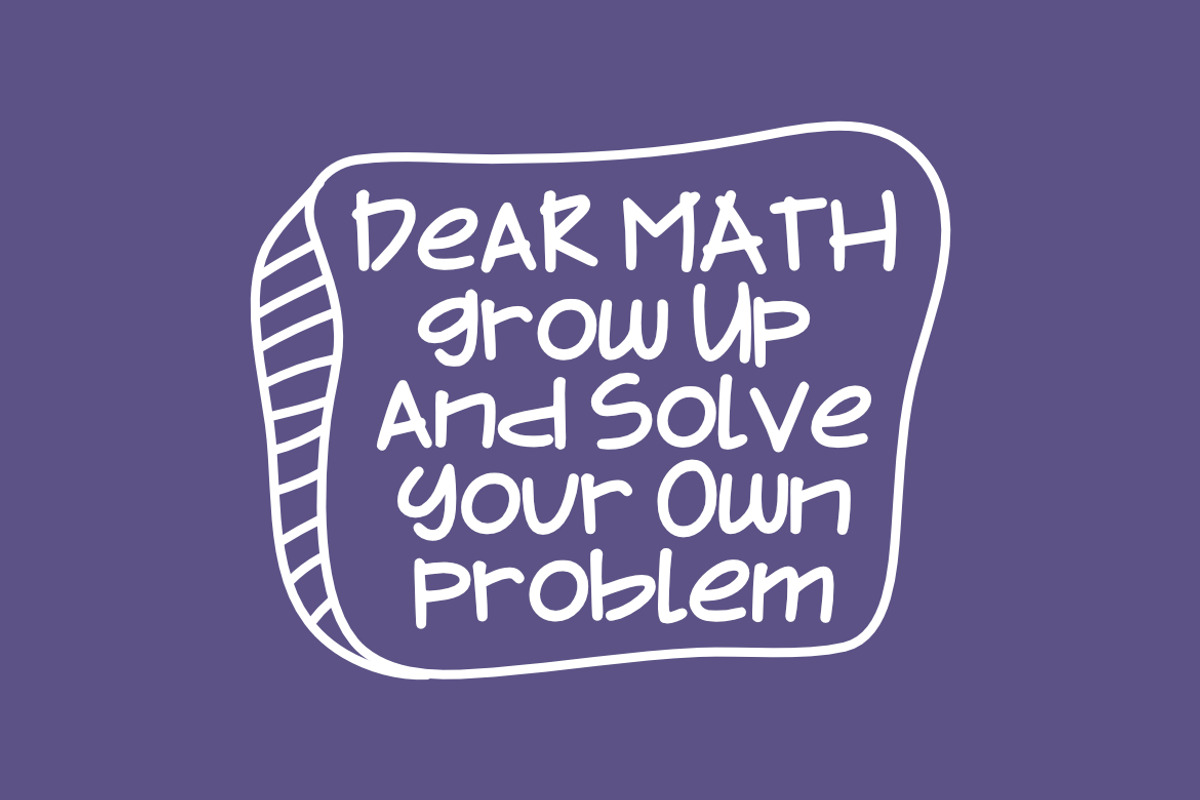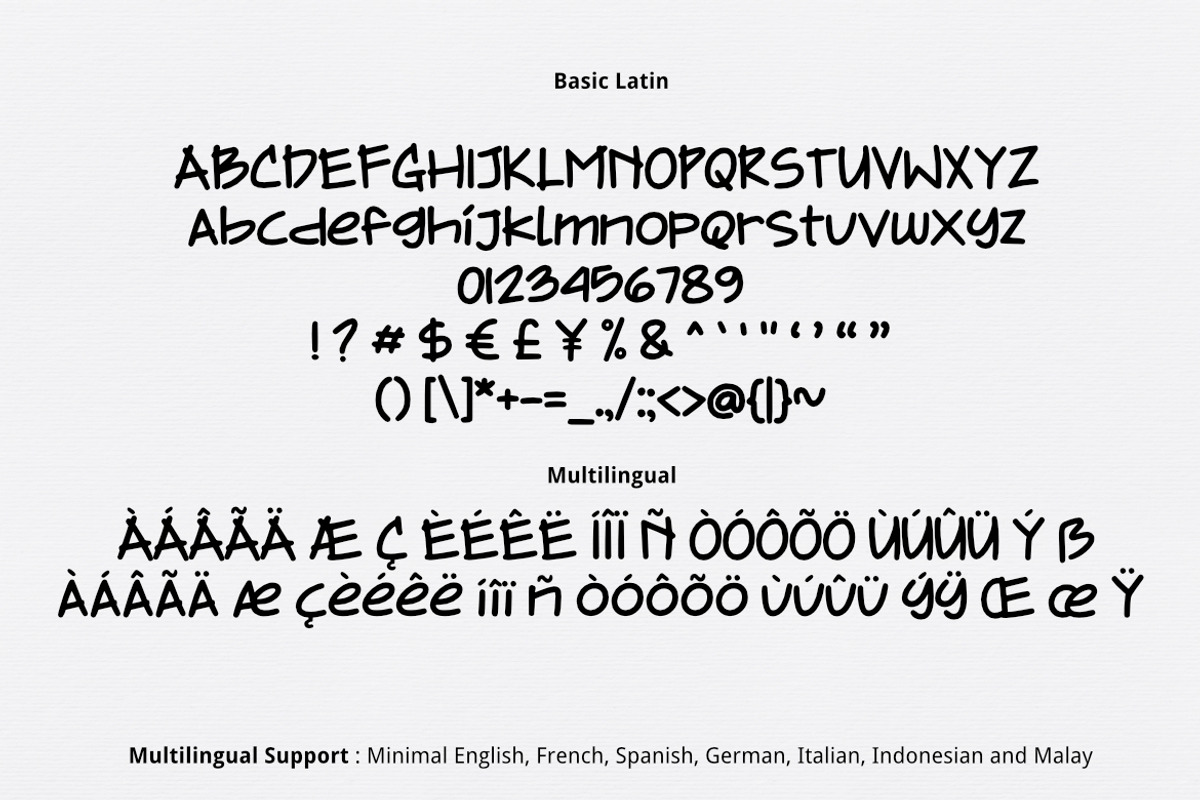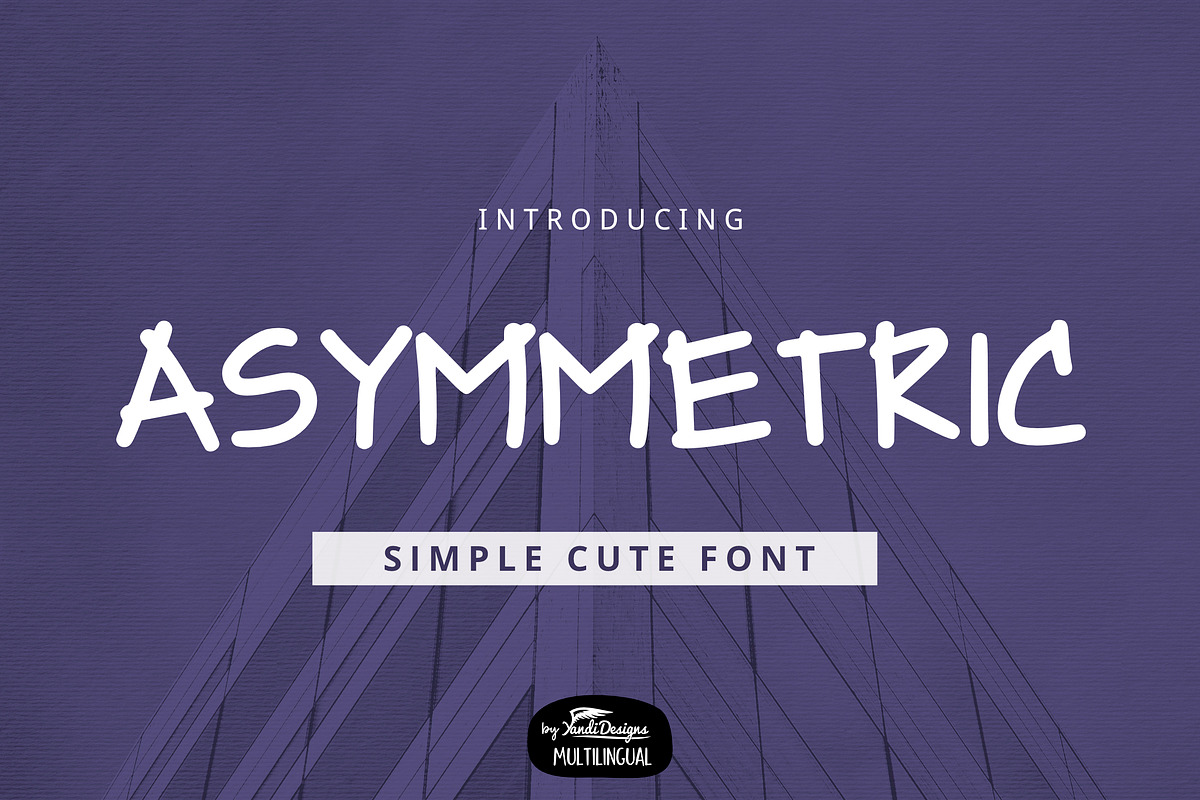
Asymmetric Font
Asymmetric Font is simple cute marker multipurpose handmade font, suitable for many project children book, quotes, logo , heading , title etc.
Asymmetric Font by YandiDesigns fits naturally into Branding, posters, packaging, typography.